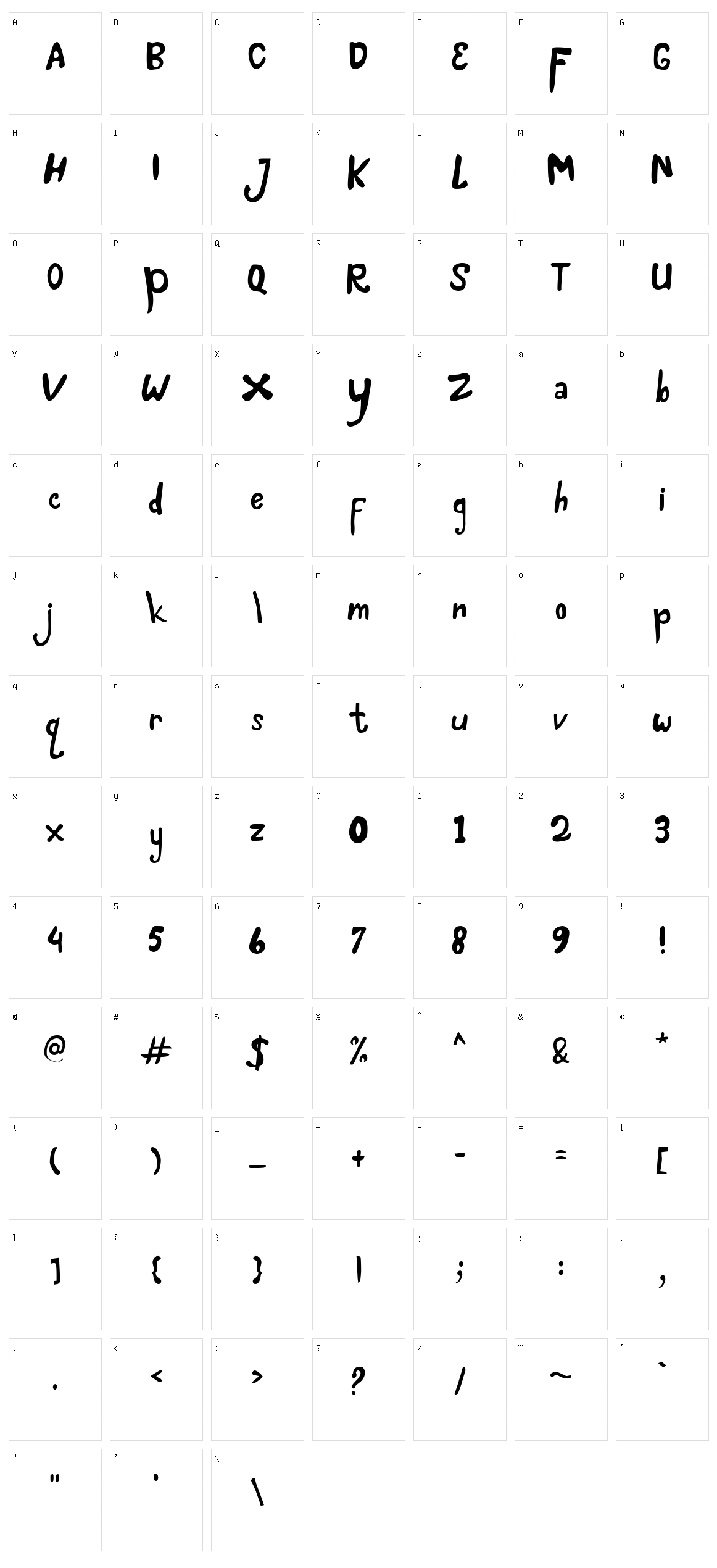
The free font Dinosans is carefully designed by Moreltype, showcasing a thoughtful balance of creativity and usability and falls under the Cartoon font style. When you download the ZIP file, it contains only 52.61 KB of font files, making it lightweight and quick to download. Please review the license details below to understand permitted usage and distribution rights. If license information is not available, we recommend using this font for personal projects only or contacting the author directly for commercial usage permissions.
This font was made inspired by children's writing, this font is suitable for products related to children